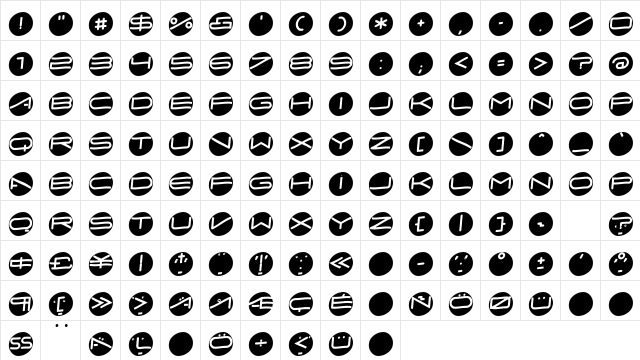
AbcariCircleKursiv Italic
Design Context for AbcariCircleKursiv Typeface
AbcariCircleKursiv is a composed and adaptable typeface that performs quietly and consistently across a wide range of design contexts. The slanted form adds forward momentum and visual energy.